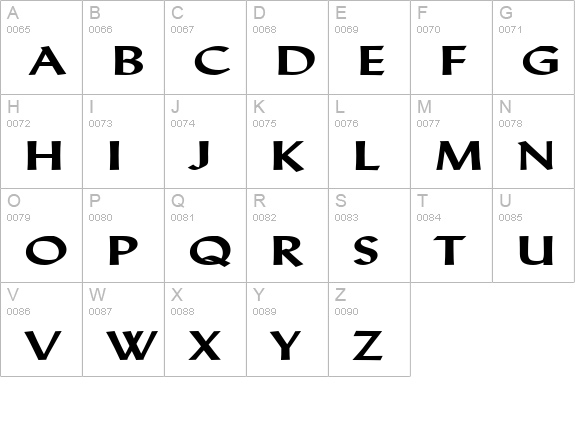
Lynda Extended Bold Font Details
Lynda Extended Bold is a strong, high-contrast, extended-width variant in the Lynda typeface family \xE2\x80\x94 well suited to headlines, attention-grabbing titles, and strong calls-to-action.
Introducing Lynda Extended Bold font, a sleek and modern typeface that exudes confidence and sophistication. With its bold and extended characters, this font is perfect for making a statement in your designs. Whether you're creating a striking poster, eye-catching logo, or professional presentation, Lynda Extended Bold will grab attention and leave a lasting impression. The best part? Lynda Extended Bold font is available for free download at FontsMarket.com. Don't miss out on this opportunity to add a touch of elegance to your projects without breaking the bank. Download Lynda Extended Bold today and elevate your designs to the next level!